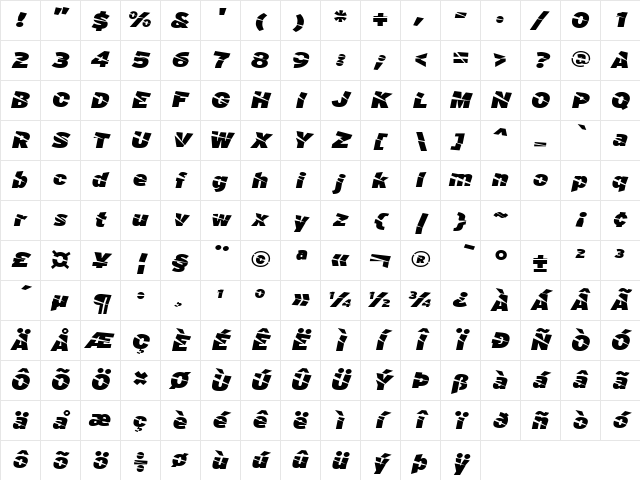
A Cuchillada Regular
Foundry: deFharo
Designer: deFharo
Design Context for A Cuchillada
A Cuchillada is a composed and adaptable typeface that performs quietly and consistently across a wide range of design contexts.
Who designed the A Cuchillada Regular font?